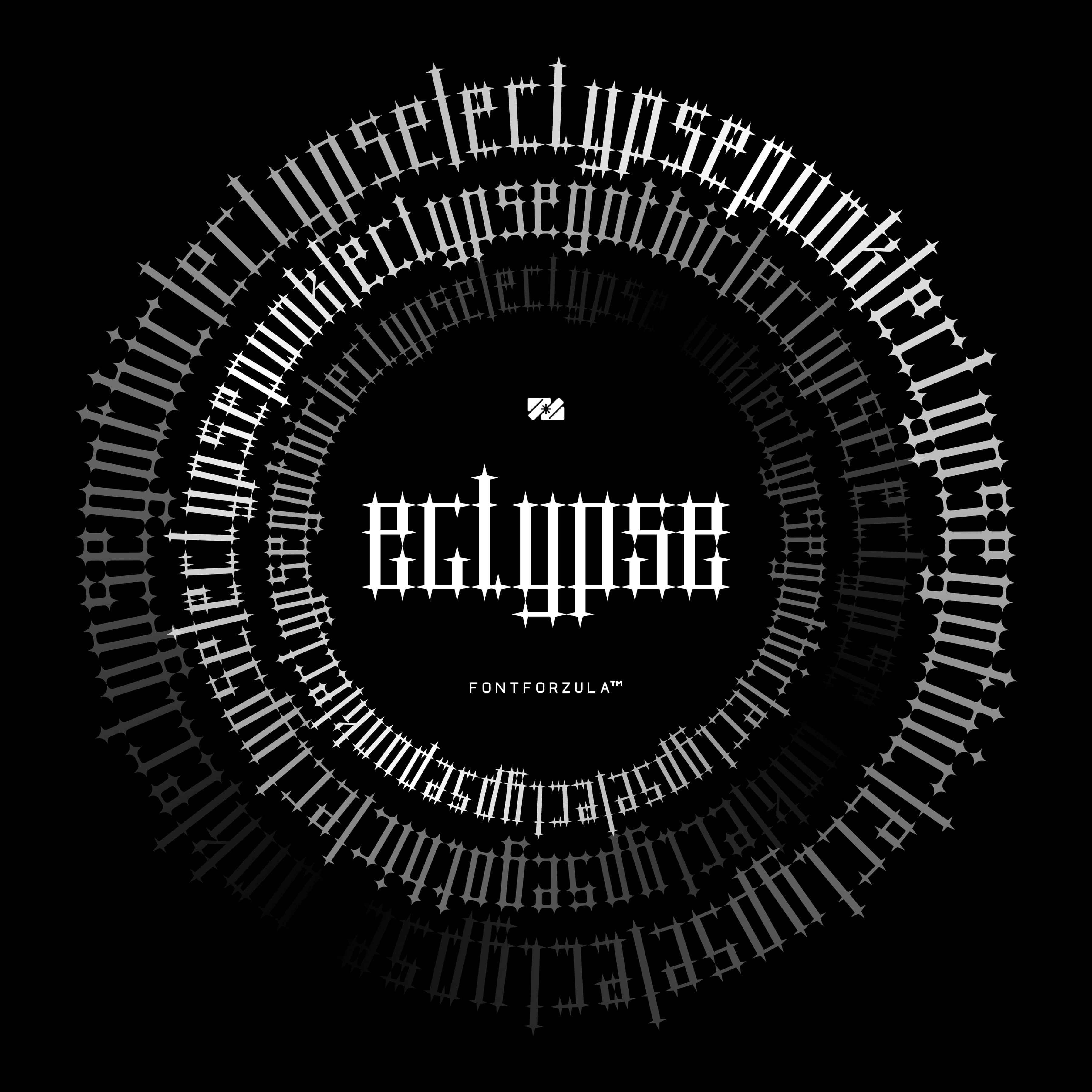
<p><strong>Eclypse</strong> is a typeface with an appearance that has a mystical, metal, semi-horror and unique vibe. This font is inspired by the manga <strong>BERSERK</strong>. One of the moments in the manga is a called <strong>THE ECLIPSE MOMENT</strong>, at that time the atmosphere was very scary and mystical, plus this font adequately describes the antagonist of the manga, named <strong>GRIFFITH</strong>.<br>This font has three variants, namely regular, punk and gothic.<br>This font is suitable for use in apparel designs, posters, brands, and other projects.<br>Eclypse includes:</p> <ul> <li>3 variants: regular, punk and gothic</li> <li>OTF/ TTF</li> <li>WOFF</li> <li>26 UPPERCASE</li> <li>10 Uppercase alternates</li> <li>26 lowercase</li> <li>5 lowercase alternates</li> <li>10 Numerals</li> <li>Punctuation</li> </ul>